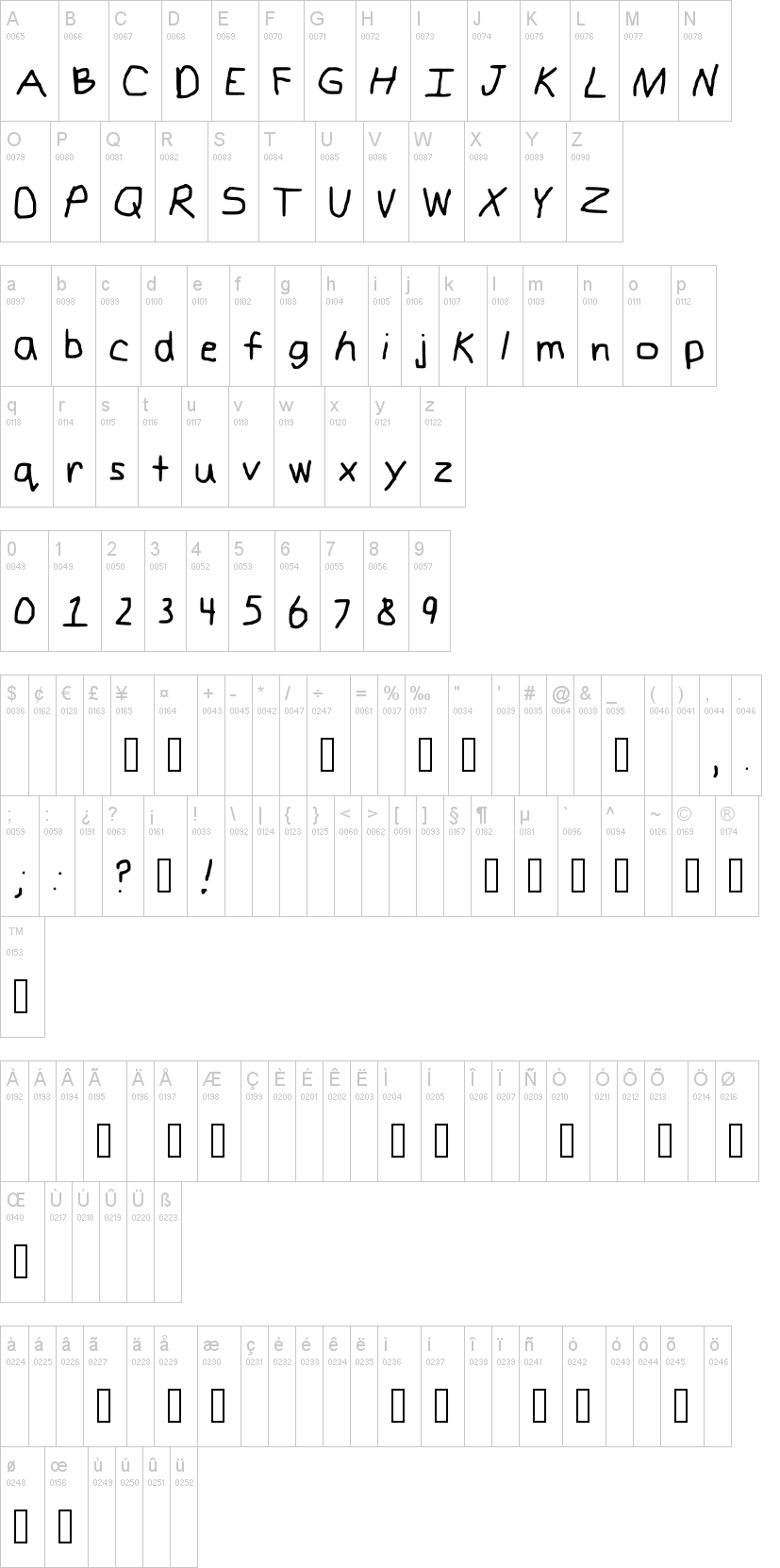
Шрифт Kindergarten
Kindergarten. Remember that sweet time filled with shaving cream homework and bad handwriting? WELL I brought that back to you! (The bad handwriting...not the shaving cream.)